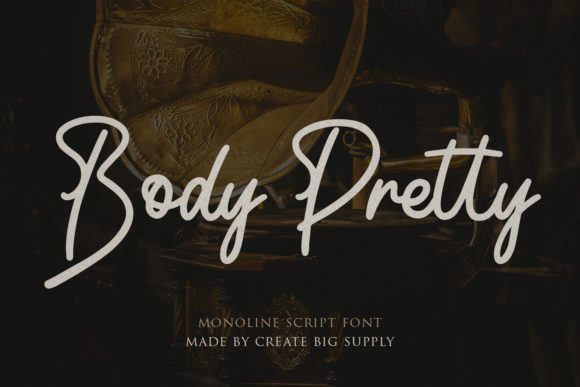
Body Pretty Script
Finding the right design elements can be challenging, but Body Pretty Script offers an exceptional collection that elevates your work instantly.
Whether you are creating POD (Print on Demand) products, wedding invitations, or social media graphics, Body Pretty Script is an ideal fit.